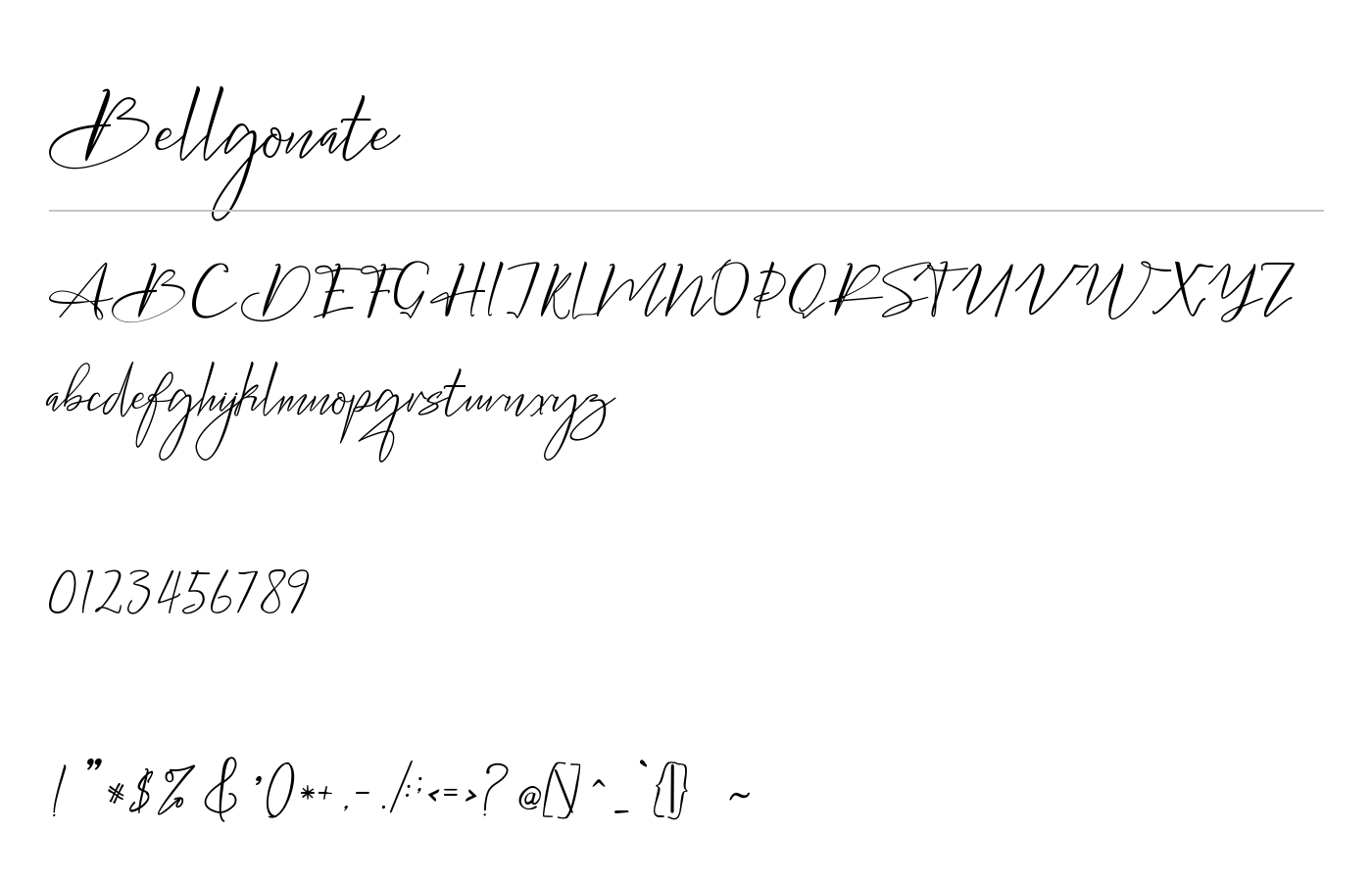
Bellgonate is a delicate and elegant script font with slender, flowing strokes that create a handwritten, sophisticated feel. Its graceful, slightly whimsical letterforms and high contrast between thin and slightly thicker lines make it perfect for luxury branding, wedding invitations, and stylish editorial projects where a personal yet refined touch is desired. This font brings charm and a modern romantic vibe to designs that seek to convey elegance and creativity.
Bellgonate Font